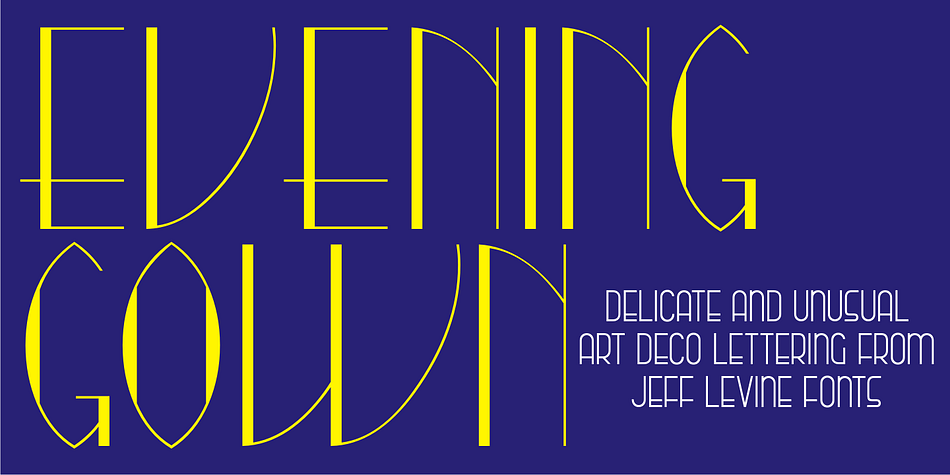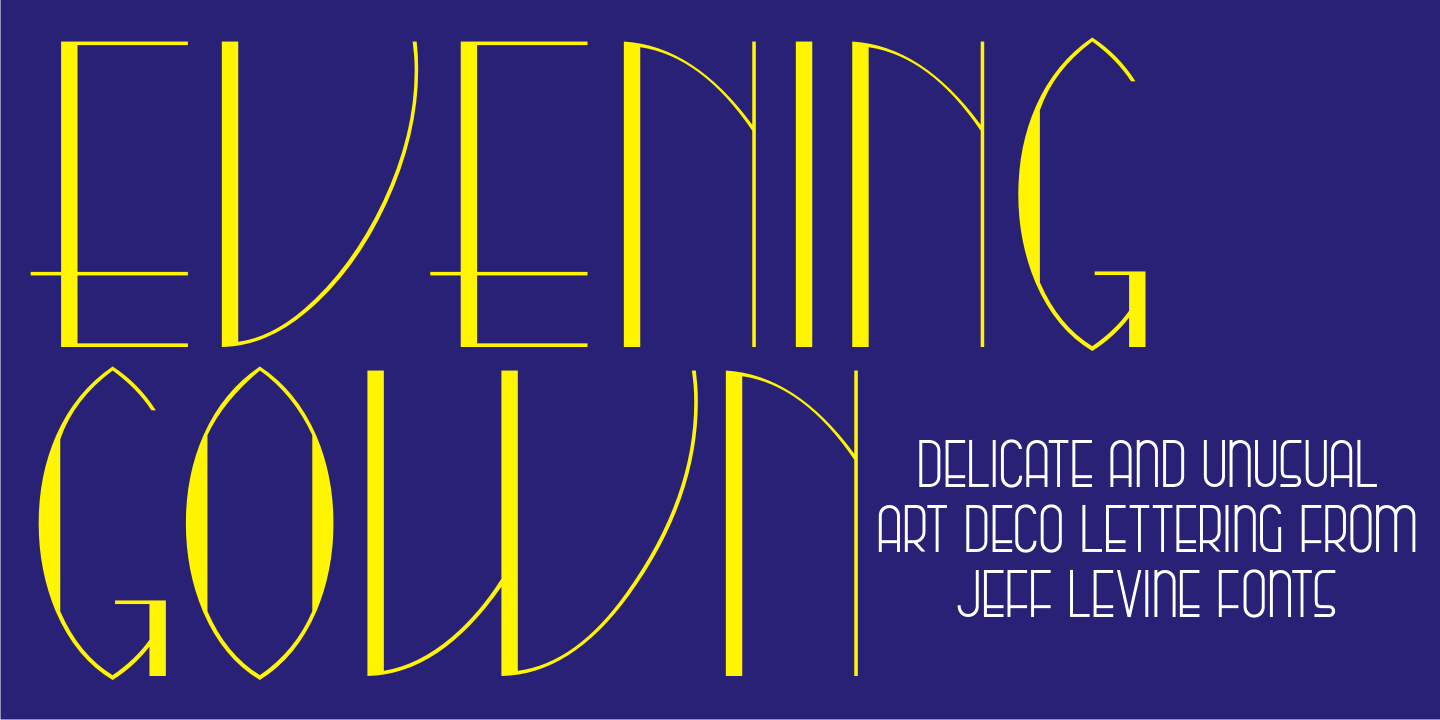
Evening Gown JNL is a art deco font published by Jeff Levine Fonts.
Evening Gown JNL comes from the lettering displayed on a printed ad for the fictional “Gowns by Roberta” in a scene in the 1935 film of the same name. “Roberta” starred Fred Astaire and Ginger Rogers and was based on the successful 1933 stage play.